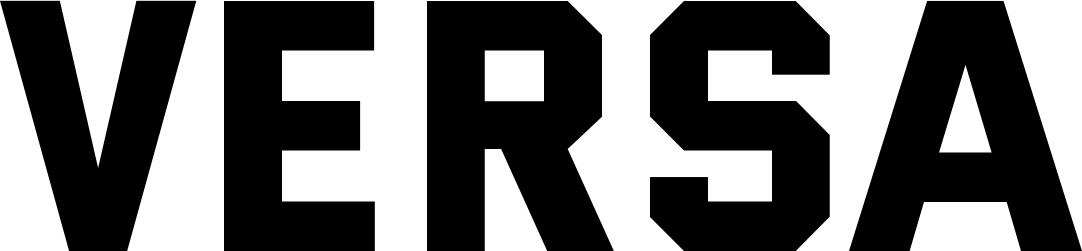
Versa Versa Font
For those games, posters, display banners, sports T-shirts, posters, flyers, and other sorts of products that require a military block font with bold and thick letters we offer Versa Versa. This sports font comes with a…
For those games, posters, display banners, sports T-shirts, posters, flyers, and other sorts of products that require a military block font with bold and thick letters we offer Versa Versa. This sports font comes with a great collection of characters that contain uppercase of the alphabet, numbers, and punctuation marks.